Today, in real world, the Retro is the new black. We are obsessed with everything old. Nostalgia is new trend. So today, we will give you some of the top retro fonts for free.
1. Lazer 84
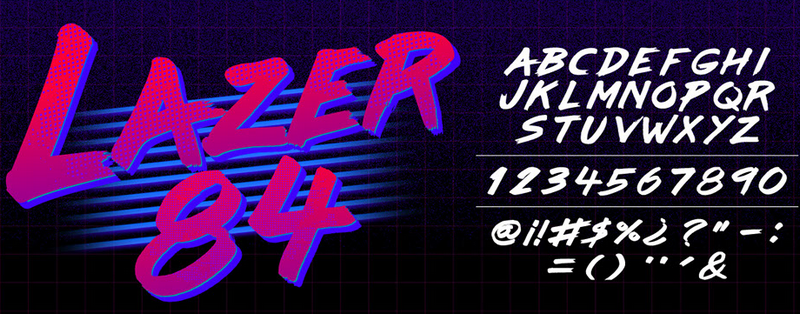
We open our outstanding round-up with Lazer 84. It is a free typeface created by Juan Hodgson, a talented art director from Panama. It screams the 80s so loud that it does not need any entourage to make the design stand out from the crowd. The typeface includes the Latin alphabet, numbers, essential punctuation marks, and accents.
2. Black Roasters Monoline Typeface
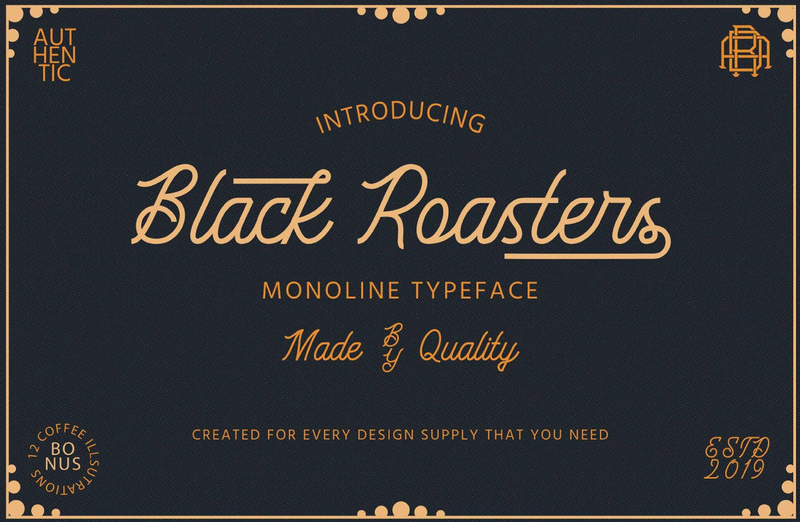
Black Roasters Monoline Typeface is a perfect option for those who seek some old-timey feeling combined with elegance since this subtle typeface will charm you with its graceful letterforms. It comes with a basic range of letters and numbers.
3. Star Full Inline Font
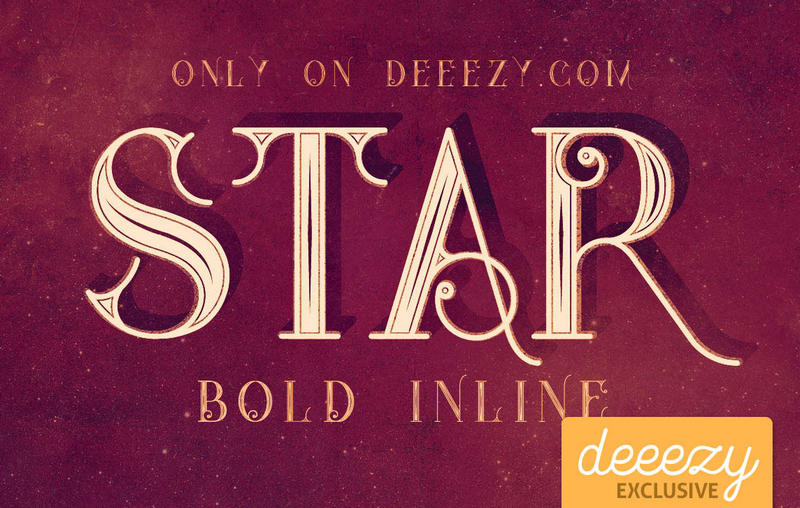
Star Full Inline Font is one of the best free retro fonts in our collection to instill some vintage feeling into any project. Much like the first example in our list, it stands by its own and can efficiently work alone. Its key feature lies in a subtle touch of art deco style that gives any headline a luxurious appearance. It comes in a bold weight that makes it an ideal display tool for taglines and slogans.
4. Retroholic Vintage Script
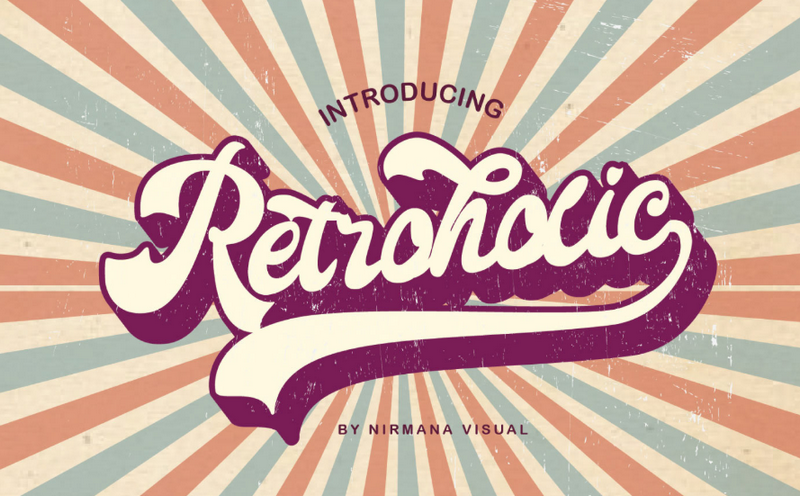
With its bold, massive letterforms enriched with curly tails, Retroholic lives up to its name. It becomes evident at first glance that it originates from the vibrant and diverse pop culture of the 80s and 90s. It ships with both upper- and lowercase letters, numbers, and basic punctuation marks.
5. Atlantis
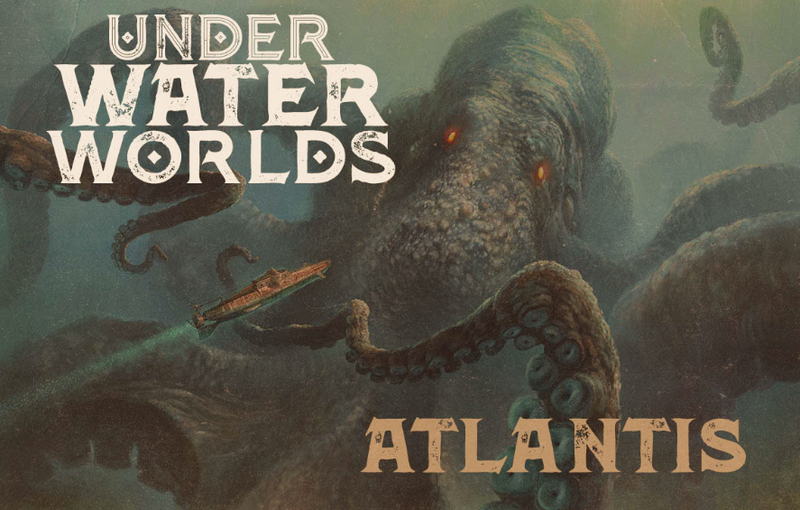
The artist behind Atlantis managed to create a typeface that matches the tone of any enigmatic project featuring a fantasy underwater world. It is a custom serif font with grunge touches and an aquatic feel. Although it has several styles, the outline version is one of the most inspiring ones. Coming with everything you might need, Atlantis will undoubtedly become a valuable asset for your next project.
6. Frontage Condensed Typeface
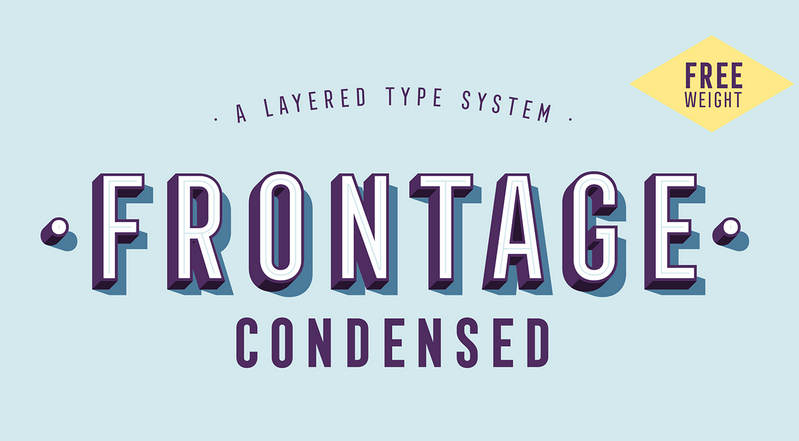
While all the previous typefaces in this collection of the best free retro fonts have been regular fonts, Frontage Condensed Typeface is a layered type system that can be a powerful tool for experimenting. It covers more than 100 languages, including all digits and punctuation marks. The only drawback is that it has only one weight available for free use.
7. Rousseau Deco
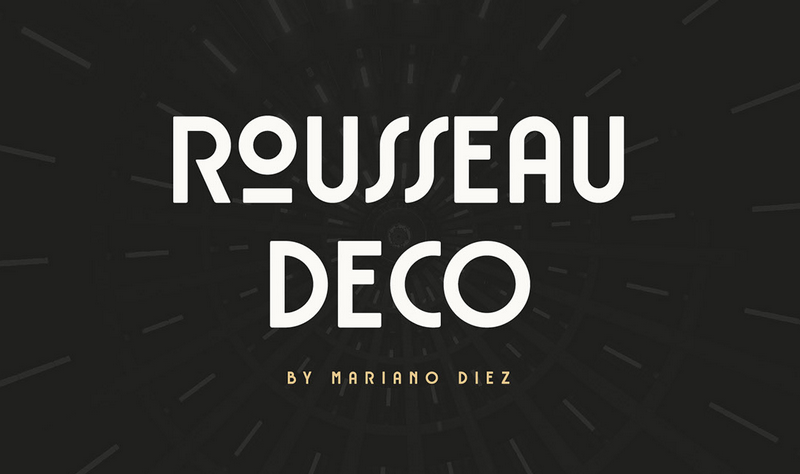
Rousseau Deco is an excellent example of free retro fonts that are centered around the art deco era. It has a great atmosphere of the 30s with some subtle touches and elegant curves, looking like a piece that comes from a Great Gatsby poster. It is delivered with characters that support various languages, numbers and, of course, punctuation marks.
8. Neon Free Font
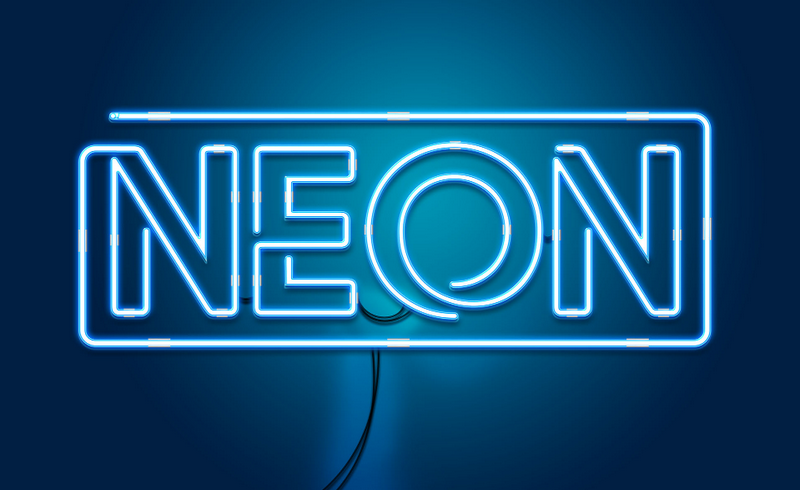
Unlike the previous example, Neon Free Font by Lil Bro feels much closer to our times, since it comes from the luminescent era that is still on in some countries. The typeface has a subtle retro feel, as it is widely associated with the urban street American style of the 60s, 70s, and even 80s. Neon Free Font can be used to display the basic Latin alphabet, numbers, and glyphs.
9. Macbeth
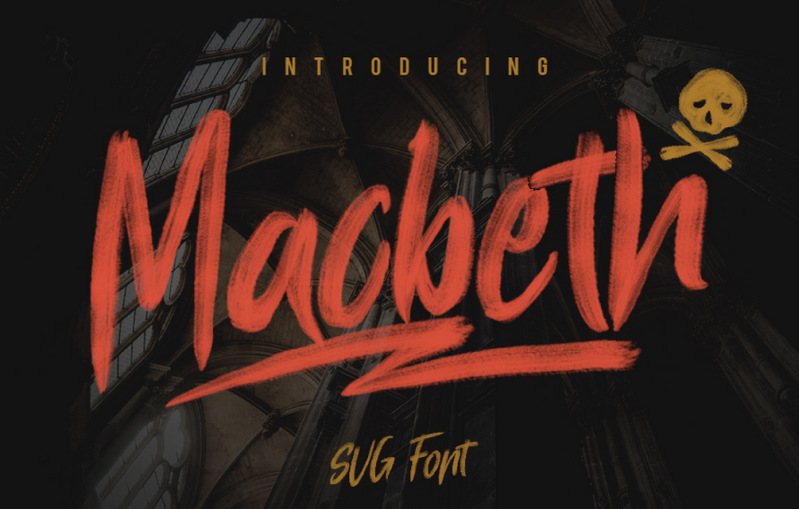
Macbeth conveys a bit creepy and even frightening impression to the viewer, however, it perfectly blends with any brutal or grunge old-timey project. It is an OpenType SVG font that can enhance a design with its authentic details and powerful charisma. What’s more, it ships with PSD files to make your life even easier. Numerals, glyphs, symbols, upper- and lowercase letters can be all found inside the font.
10. Round Light Display Font
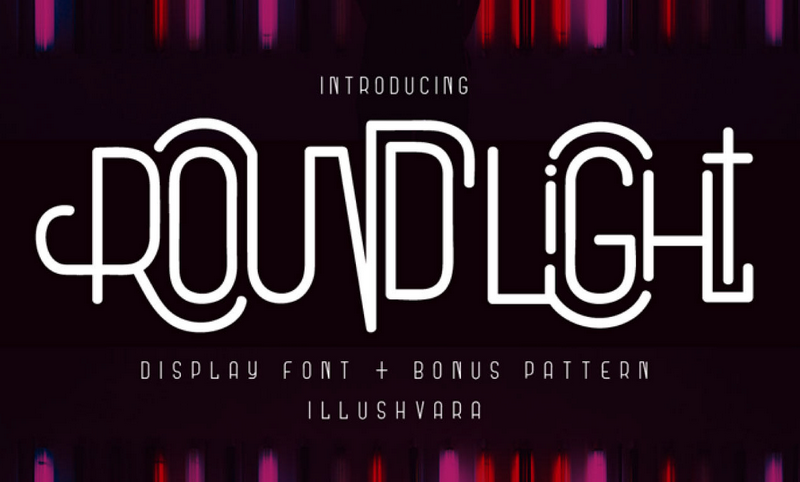
Crafted by the gifted Bayu Suwirya, Round Light Display Font has a subtle sense of art deco style, even though it was inspired by the neon lights and mainstreams of the 90s. It has beautiful round letterforms and fine details, resulting in a pretty lavish appearance. It comes not only with an alphabet and all standard glyphs but also with a matching pattern to complete the design.
11. Determination
While we are accustomed to thinking that retro style is something that concerns stuff from the mid-twenty century, the truth is that the 90s are already our past — even though they were here quite recently. And, there is an excellent typeface to meet this beloved epoch.
Determination is one of those free retro fonts that can be easily called geeky. It looks as if it has arrived from one of our favorite video games from the late 80s or early 90s. It exudes a strong digital vibe thanks to its marvelous 8-bit pixel letterforms. Although it has a sharp boxy appearance, it’s still playful and adorable.